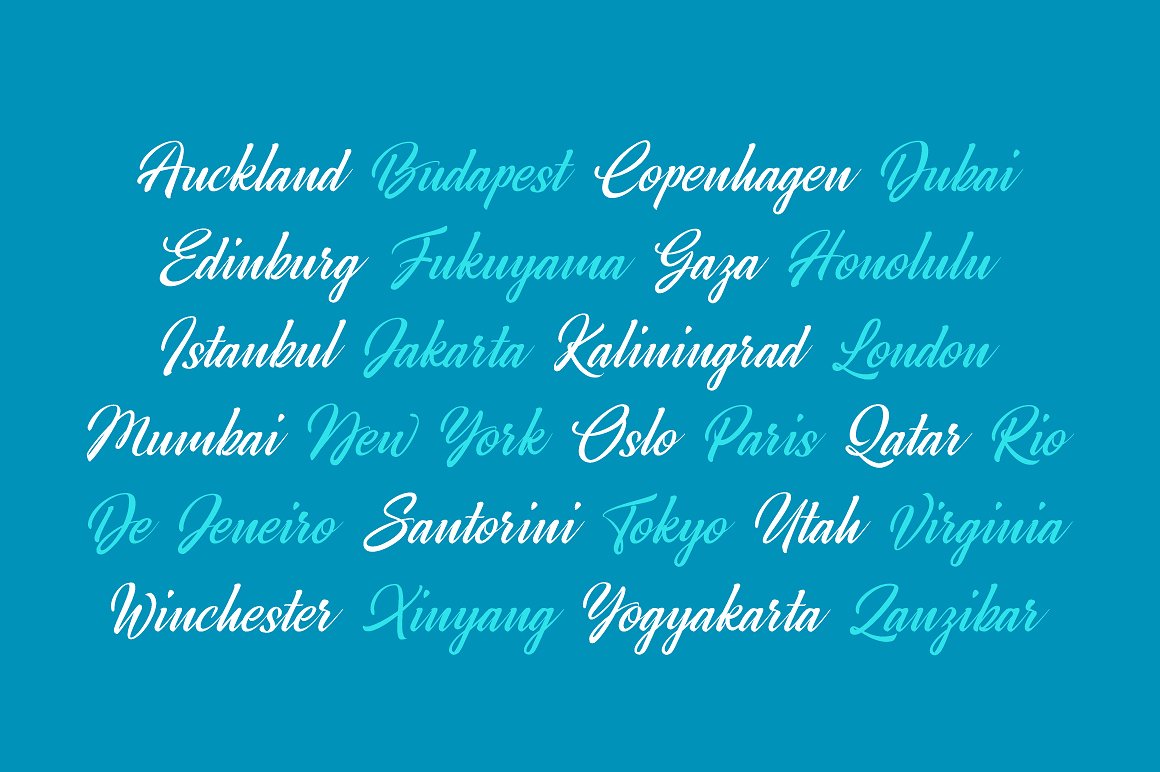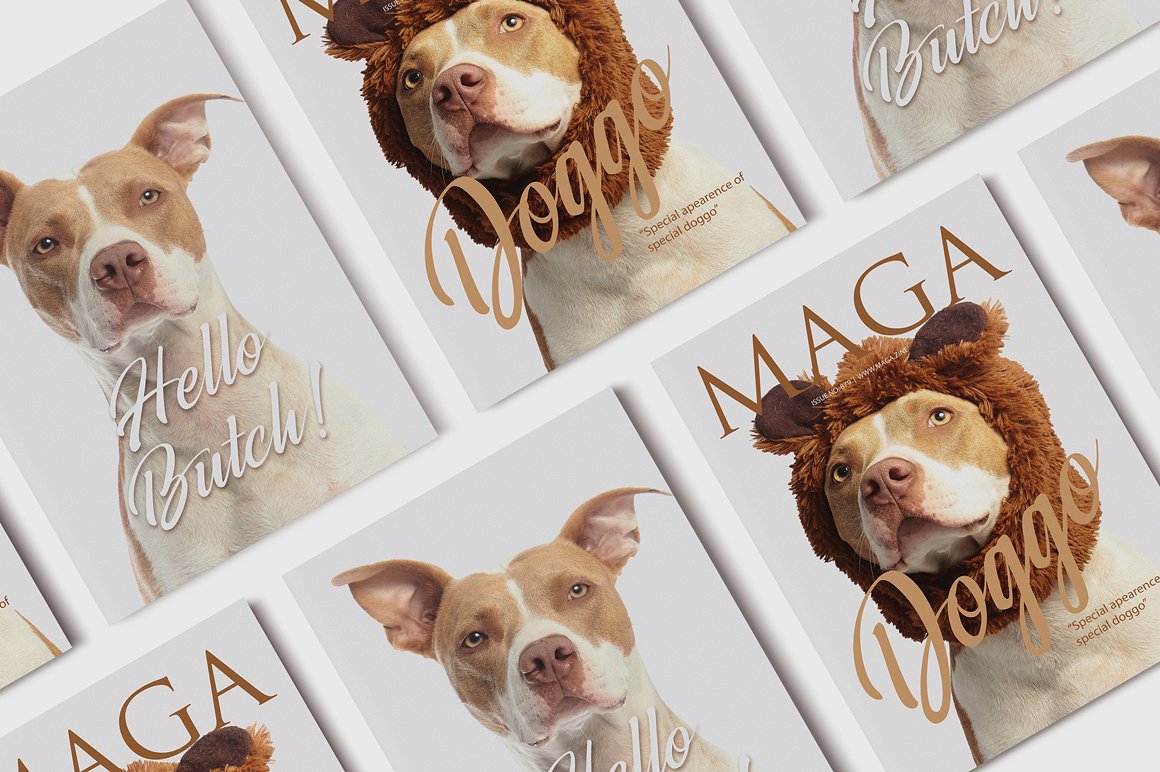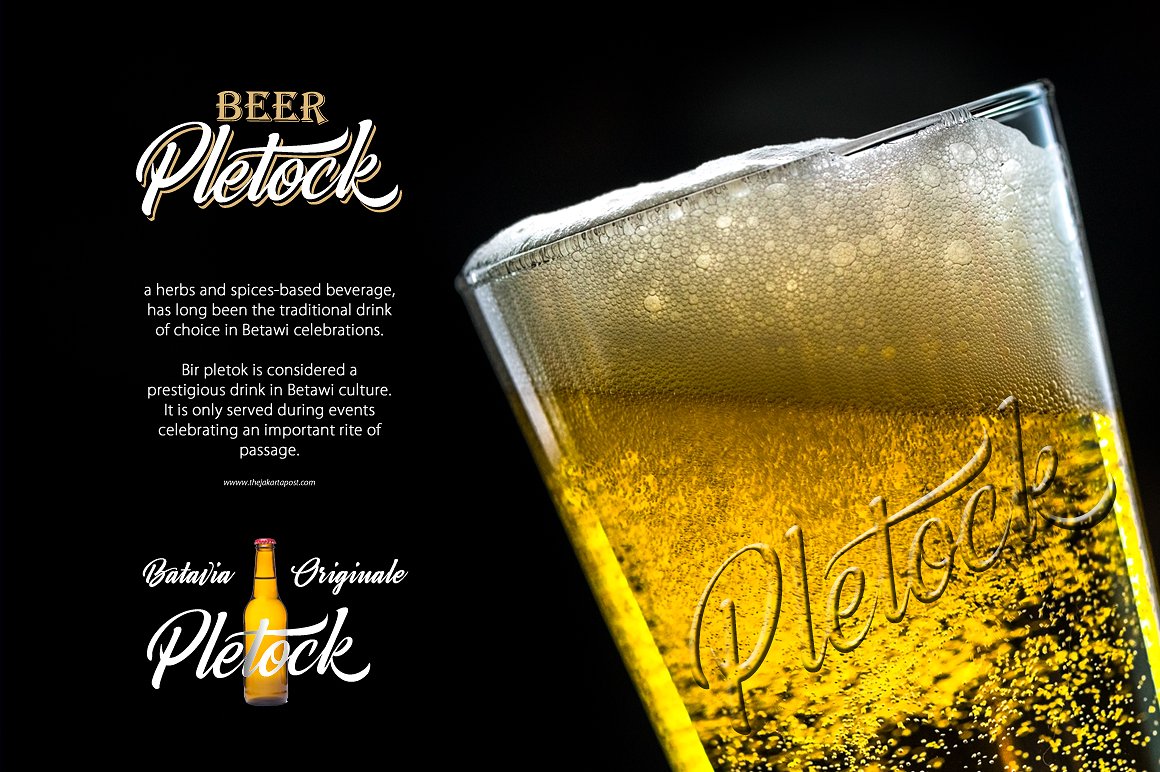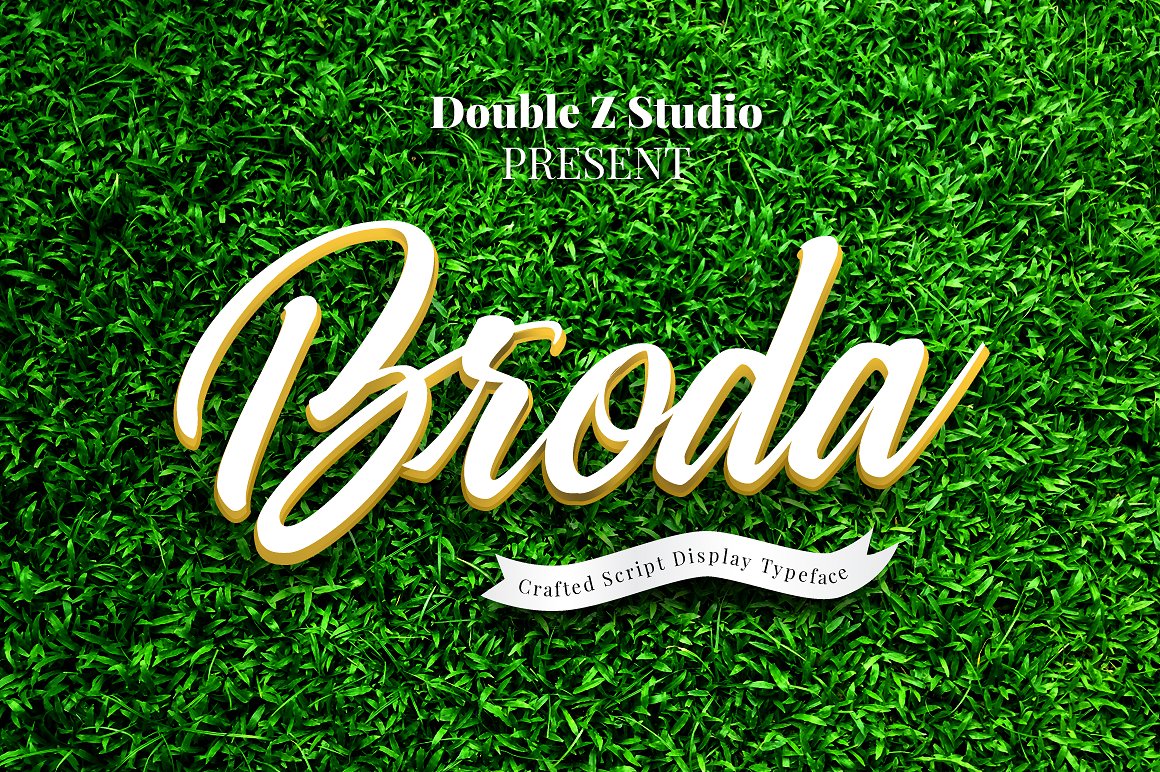
Broda Script Font
Introducing Broda Font. It is designed by DoubleZ Studio, this is a premium font, are sold on creativemarket, but it was great, it is free today for download. Broda is a beautiful and elegant display script. Perfect for designing branding, blog logo, website logo, print ads, book covers, film covers, apparel, cards, logos, posters, etc. Opentype features gives you more alternatives in designing.